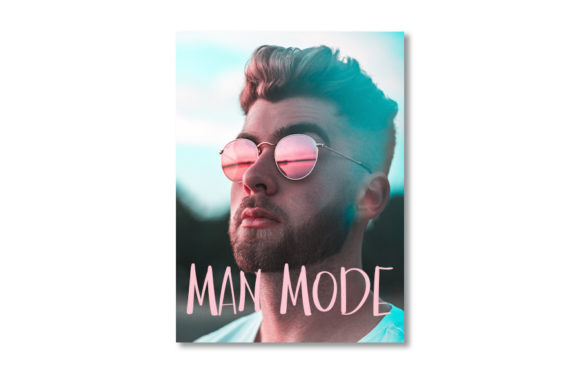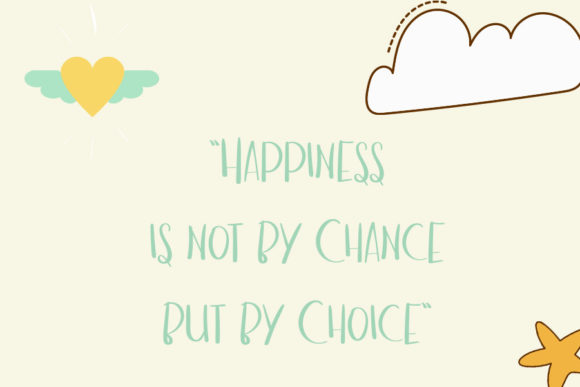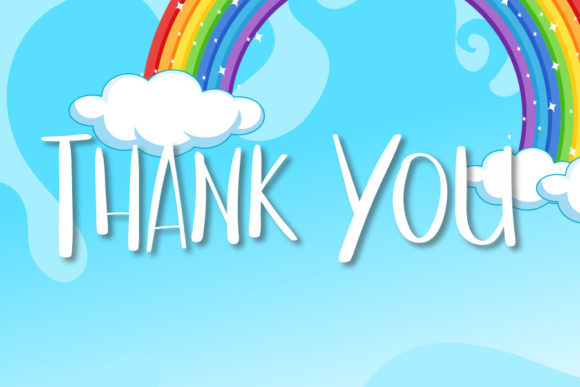
Introduction to Fishing Sunglasses Font
Fishing Sunglasses is a quirky and unique display font.
This font is neatly crafted and highly detailed Whatever the theme, it be a wonderful complement to your font library.
Key Features of Fishing Sunglasses Font
Why Choose Fishing Sunglasses Font?
Fishing Sunglasses Font offers exceptional quality and versatility, making it a valuable addition to your design toolkit. Whether you’re creating for personal projects or commercial use, Fishing Sunglasses Font delivers professional results.